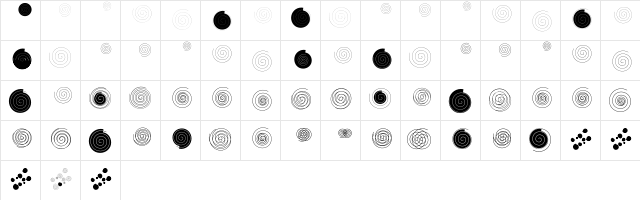
Helixal Regular
Design Context for Helixal Typeface
Helixal is a composed and adaptable typeface that performs quietly and consistently across a wide range of design contexts.